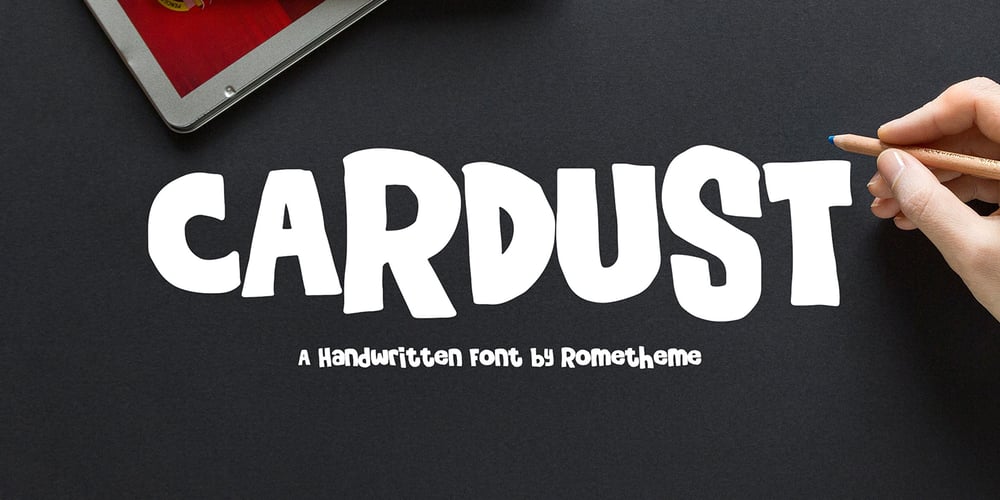
Cardust Font Family was designed by Yahdi Kumala and published by Rometheme. Cardust contains 1 styles and family package options. Cardust is a bold display font, this font looks funny, cute, kids, cartoon, playful, catchy and easy to use. Cardust Font is the best choice for your professional design projects, including : logo, poster design, t-shirt, headline, flyer, cd cover album, quotes, business card, branding, magazines, social media, advertisements, product designs, or something that need playful or cartoon looks. Highlights: – Fonts are provided in OTF formats. – Standard license – create as use as many of these fonts as you’d like on your own personal projects as well as any commercial ones for clients. – No special software is required, The fonts can be opened and used in almost any program/software that can read standard fonts – even MS Word. What’s included: – Cardust OTF